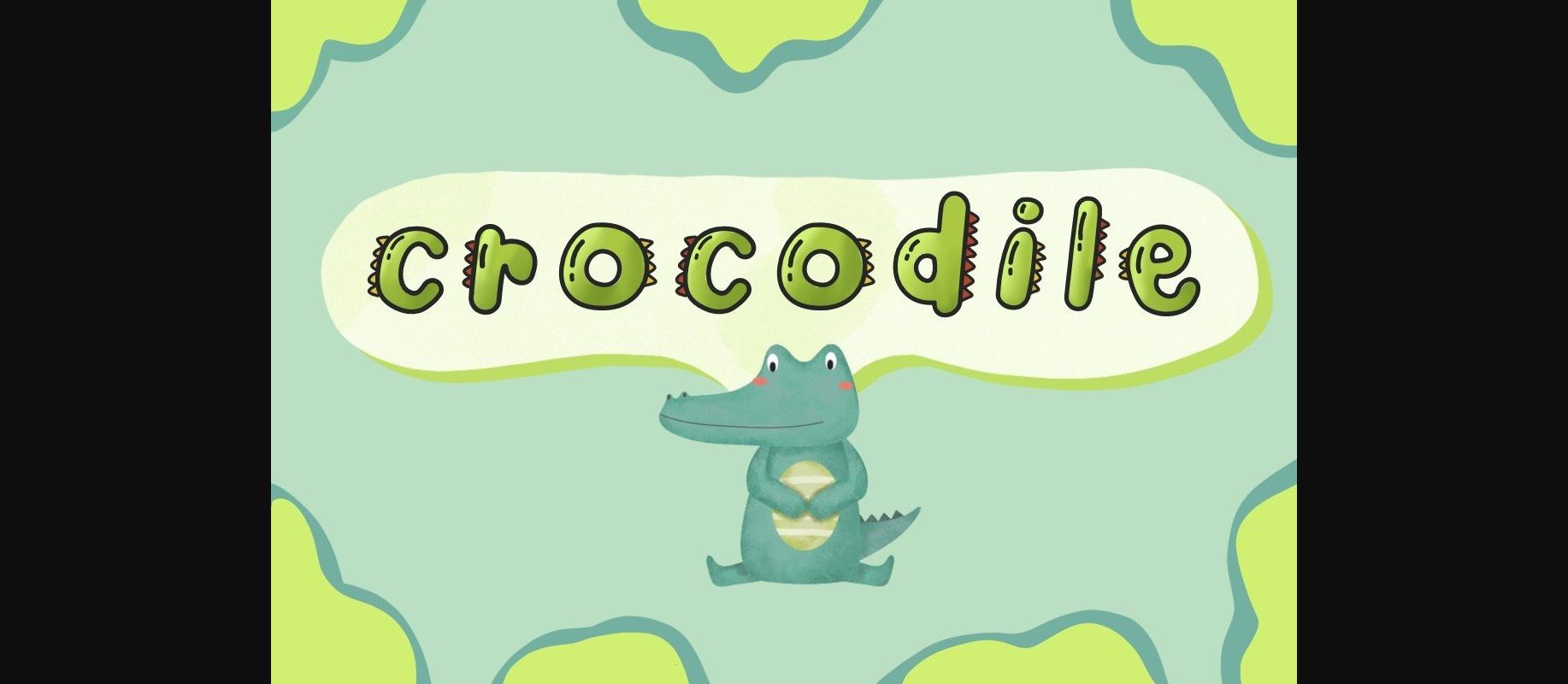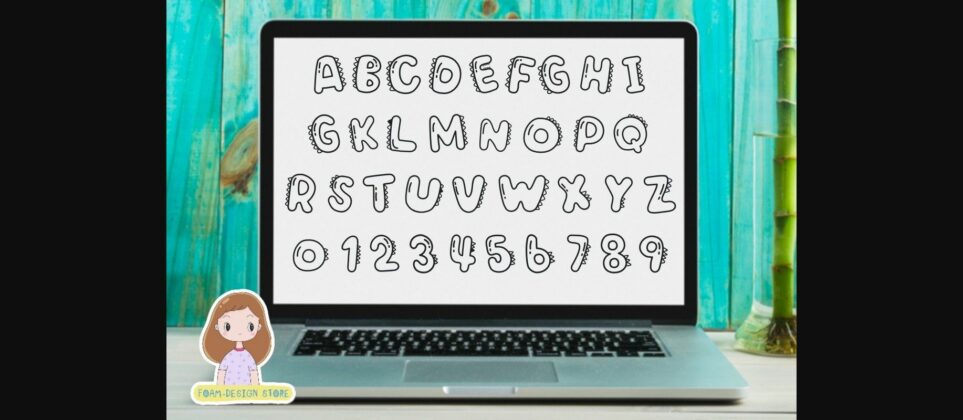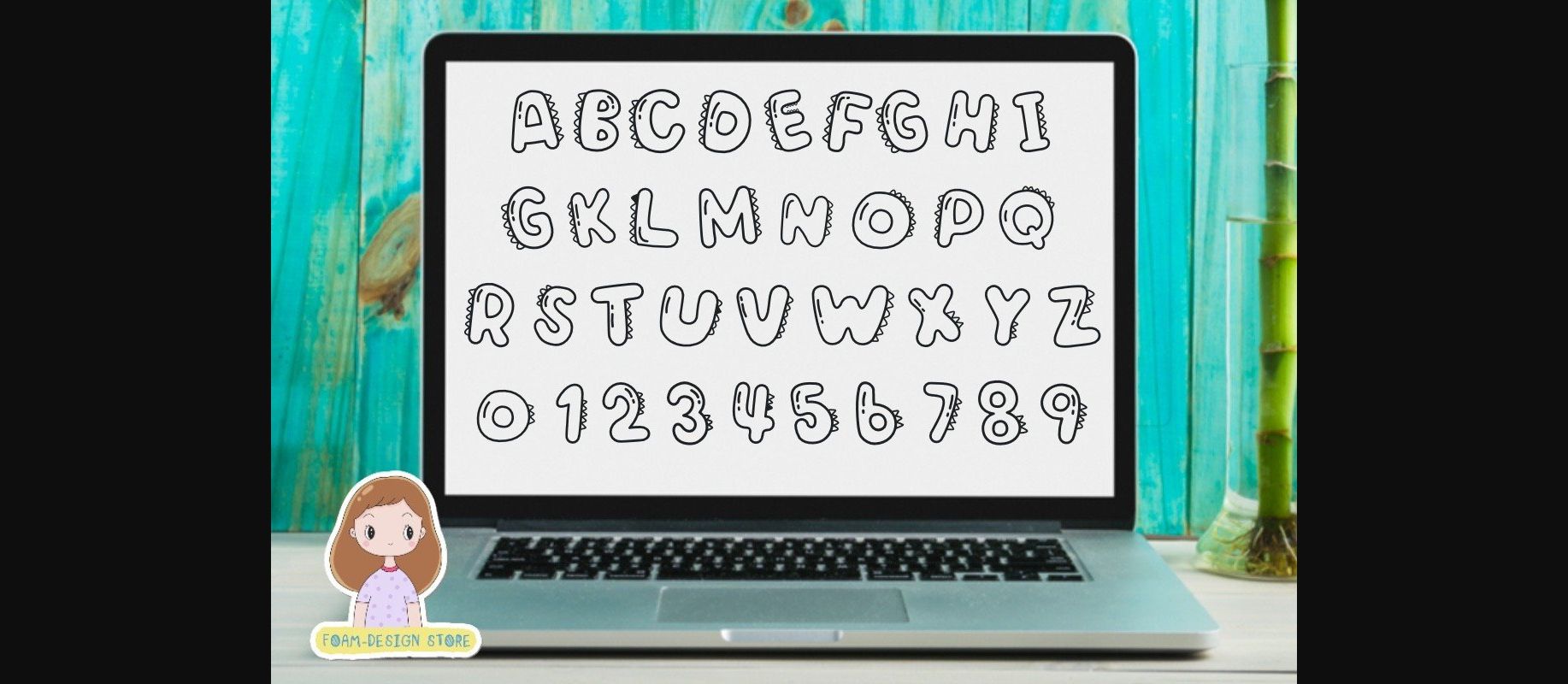
About Crocodile Font
Crocodile is a cute, fun, and playful decorative font. Its friendly feel makes this font incredibly flexible, fitting a wide range of contexts. Have fun with this trendy font and explore its endless variations. Add this beautiful font to each of your creative ideas, and notice how it makes them stand out!